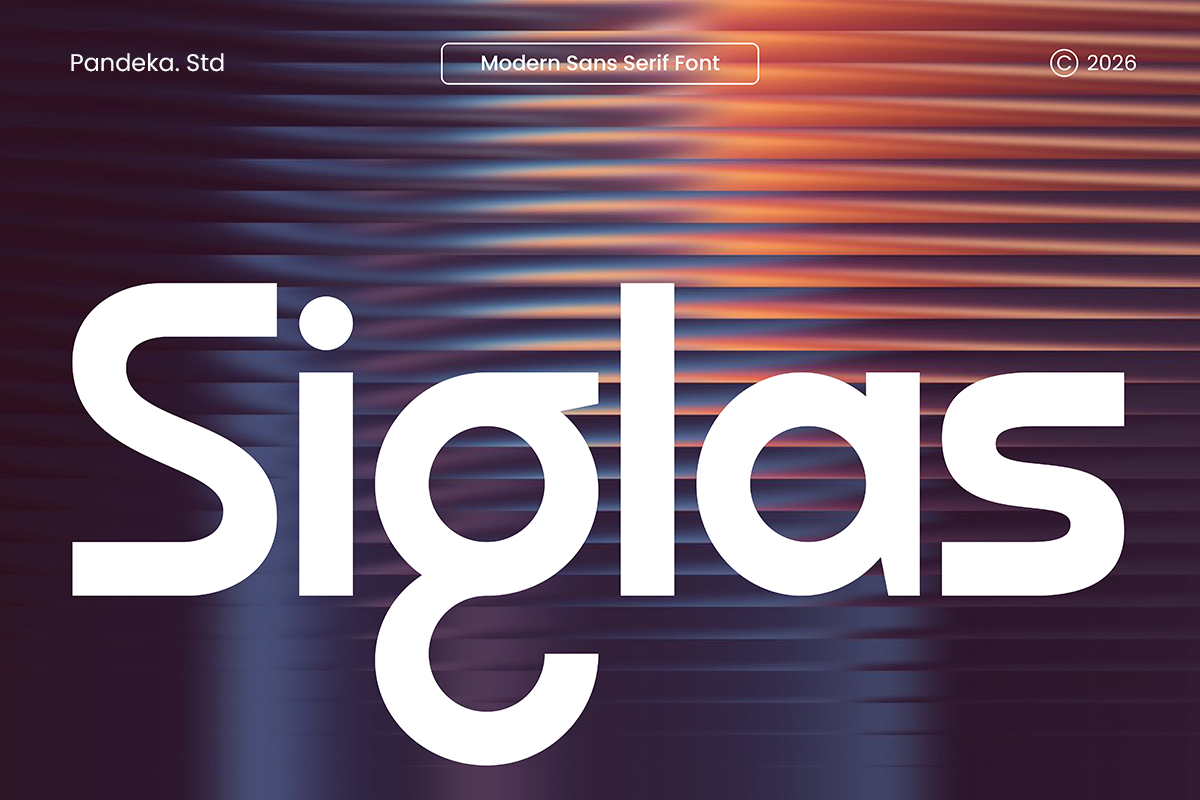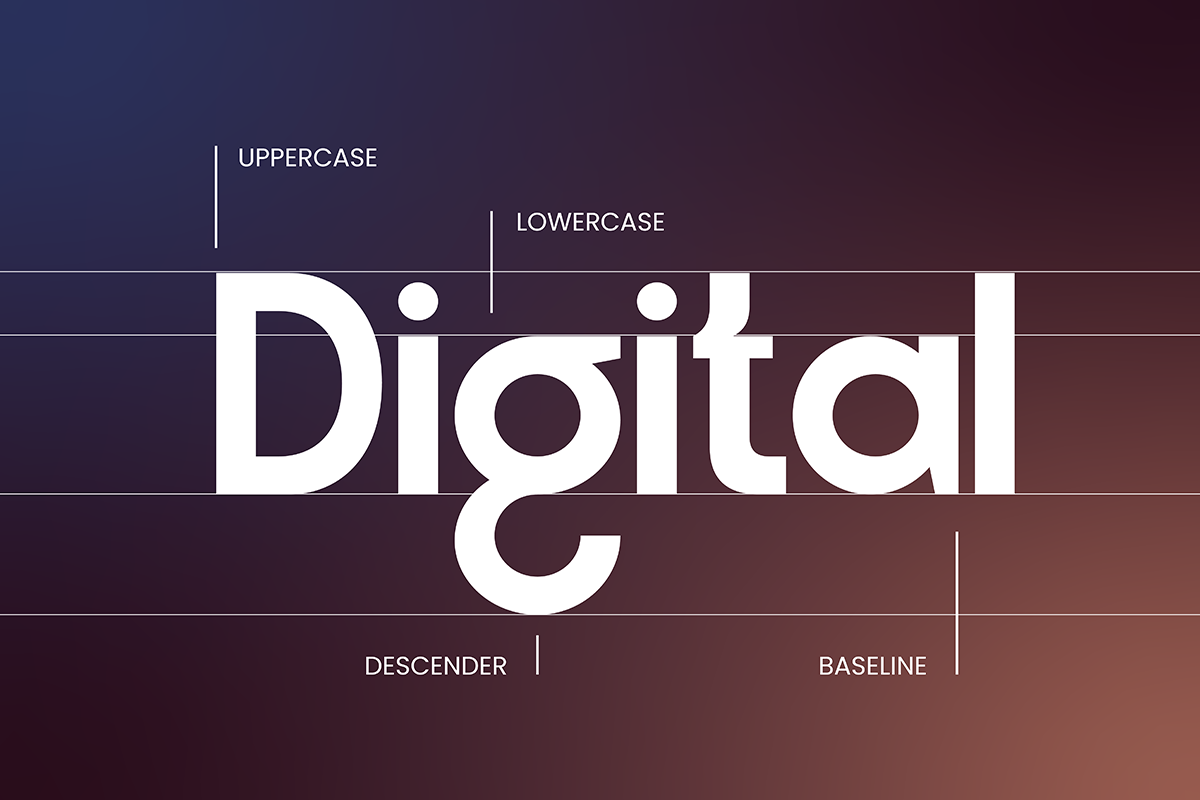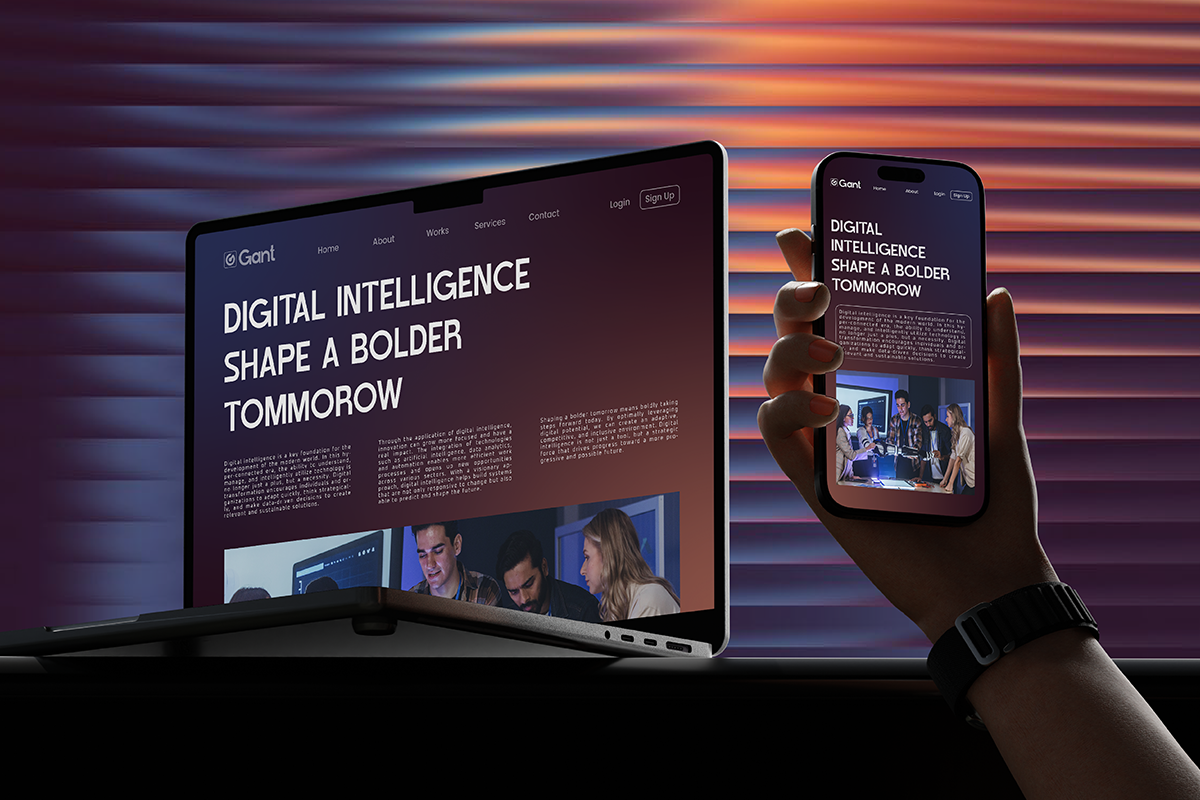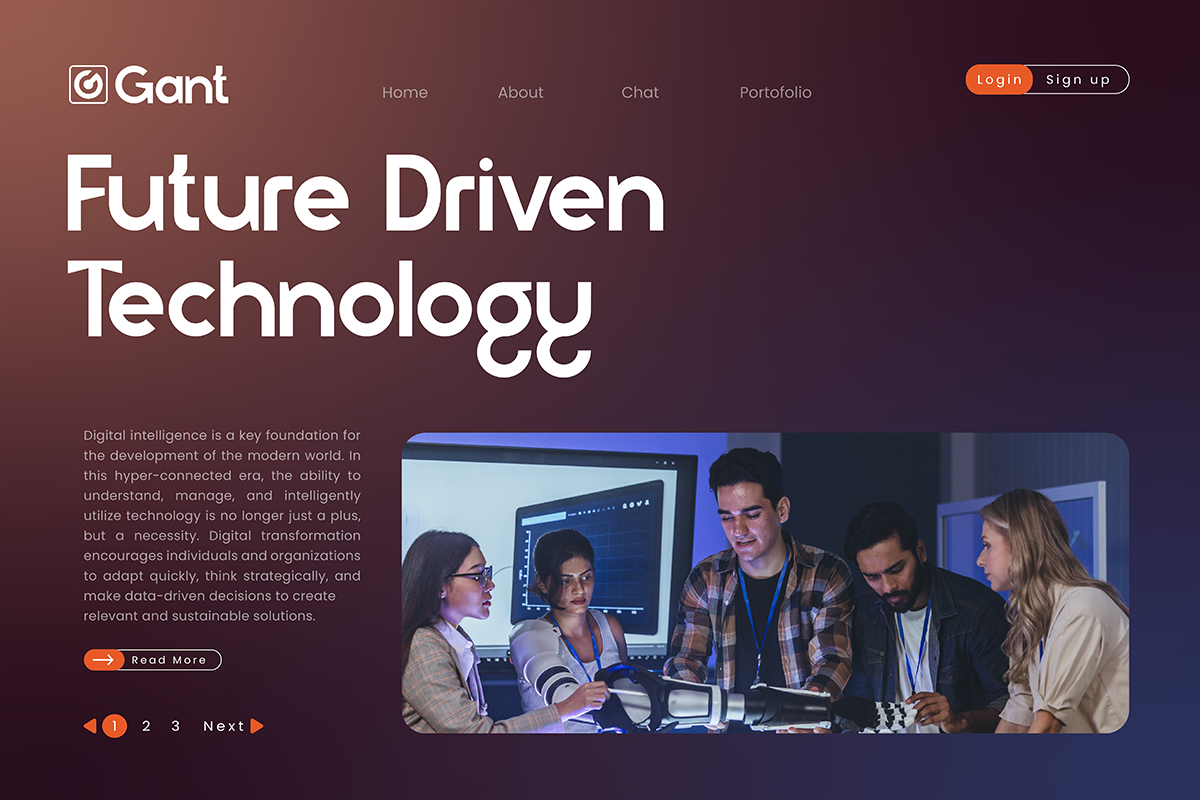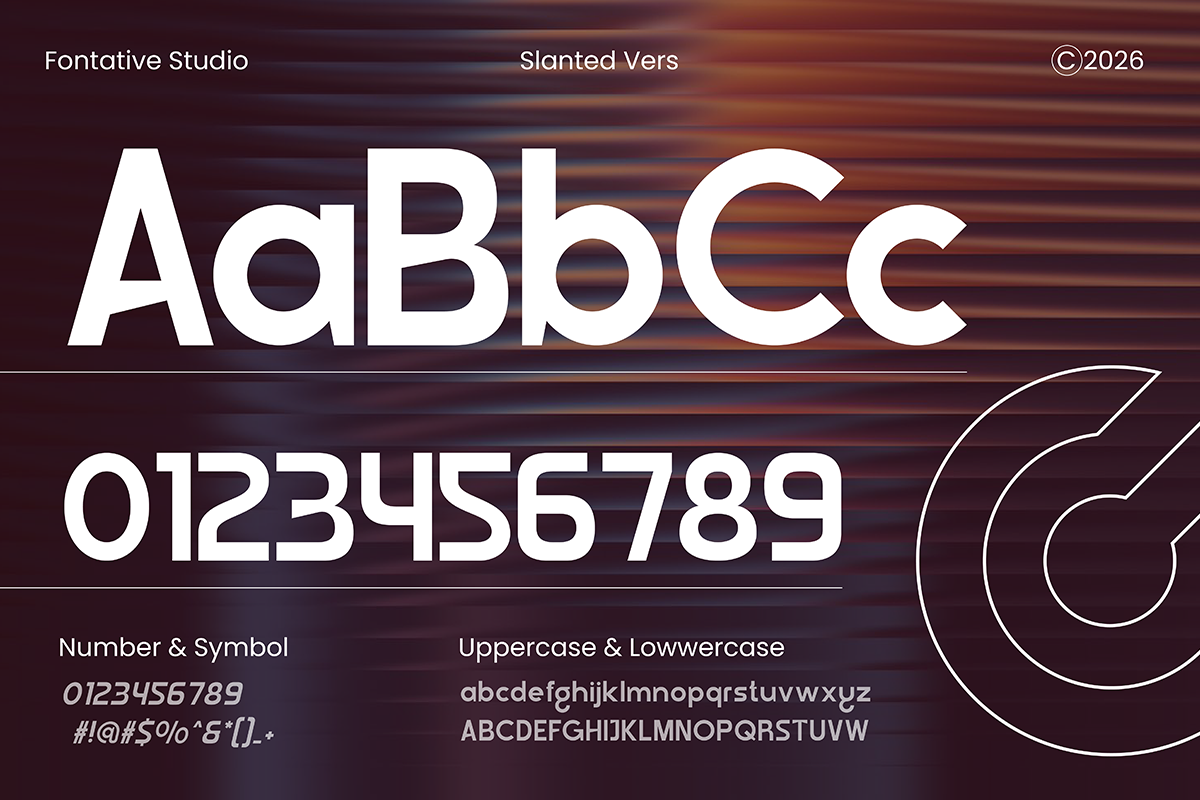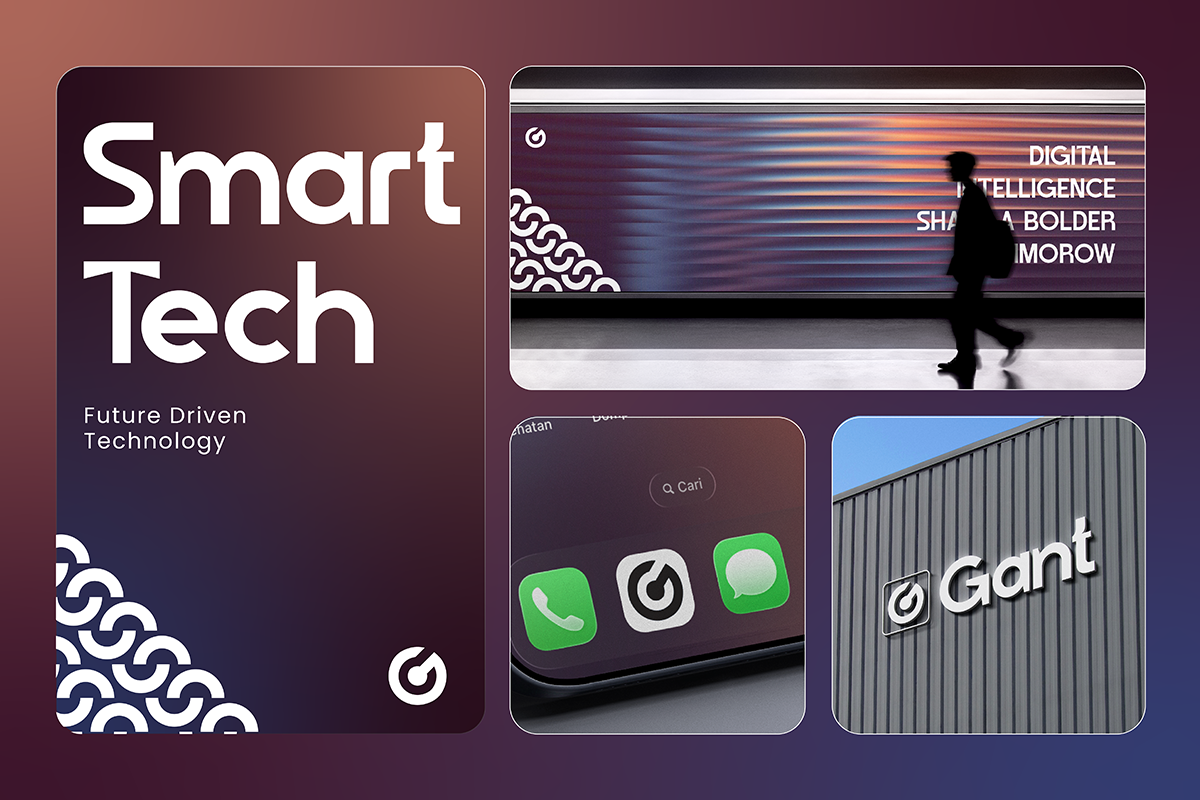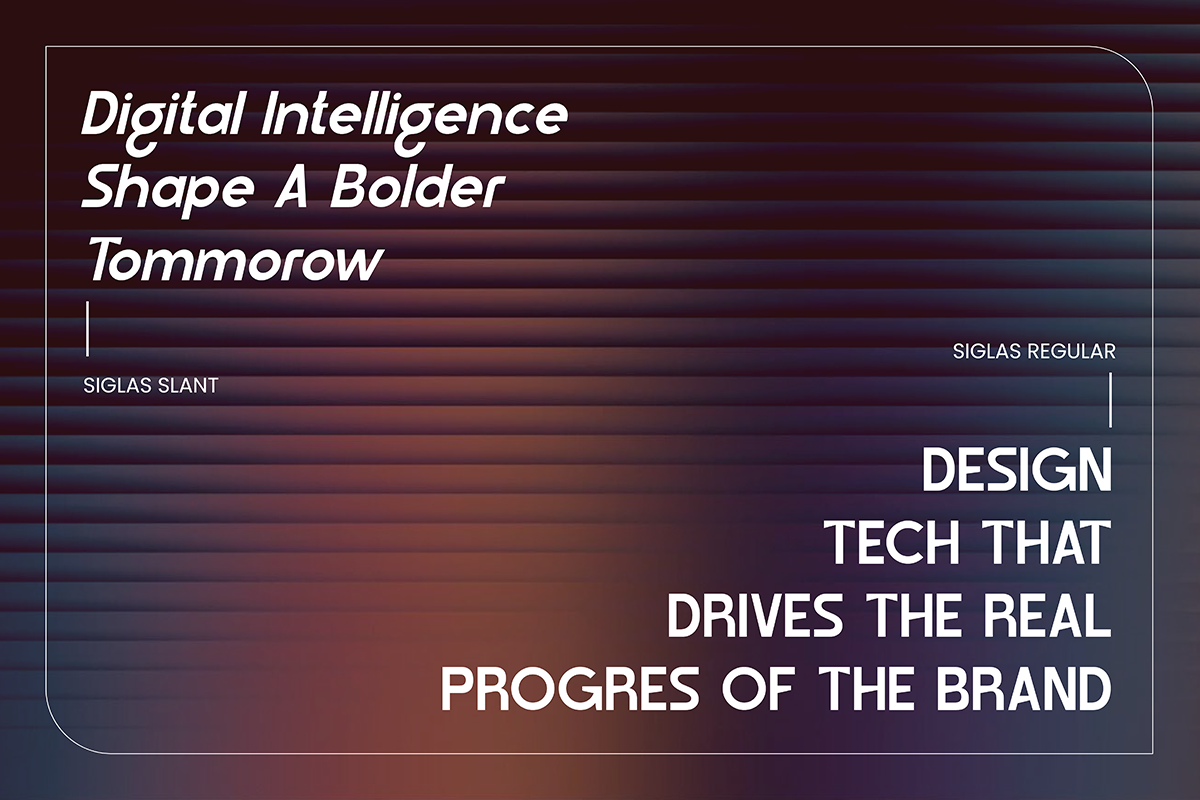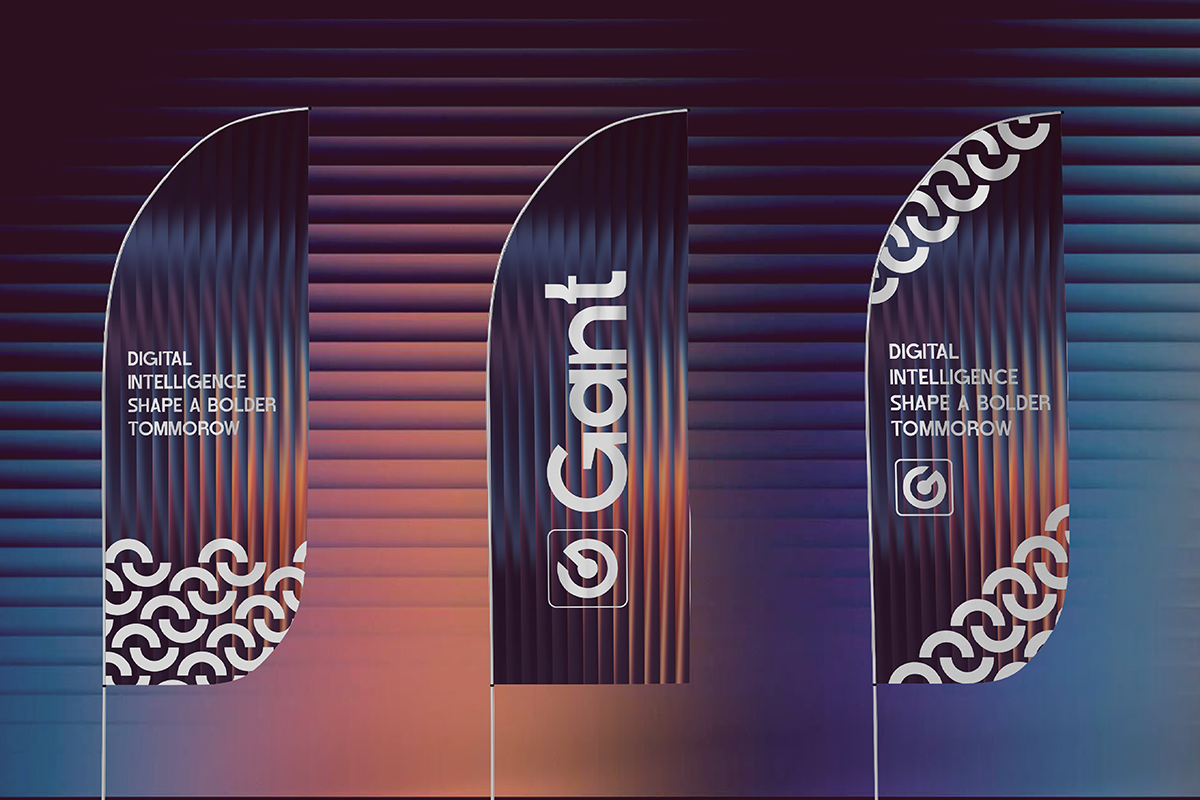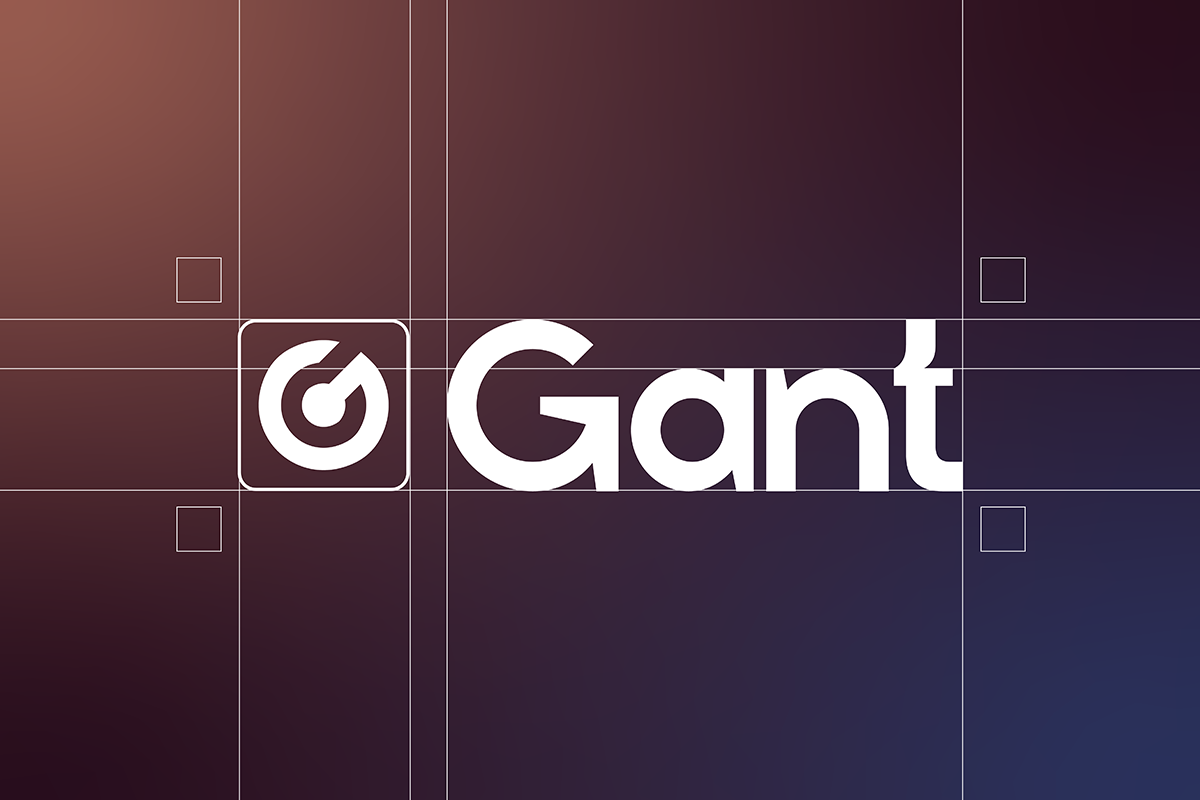
Siglas - Modern Sans Serif Font
Siglas is a modern sans serif font designed with clean geometry, balanced proportions, and a sleek contemporary feel. Its smooth curves and precise structure create a professional and forward-thinking look, making it ideal for modern branding, digital products, technology visuals, websites, UI design, and creative presentations.
This typeface comes with 2 styles: Regular and Slant, offering flexibility for both clean layouts and dynamic compositions. The slanted style adds motion and energy, making Siglas perfect for tech branding, startup identities, posters, packaging, social media graphics, and modern digital interfaces that require a bold yet minimal typographic presence.
- 2 Style: Regular and Slant
- Full Character Set: Uppercase, lowercase, numbers, symbols, and punctuation